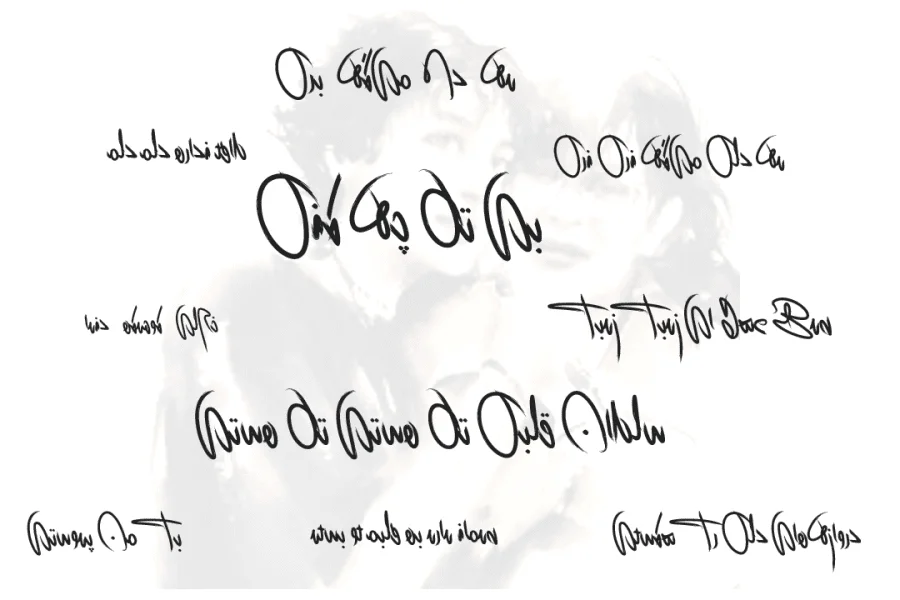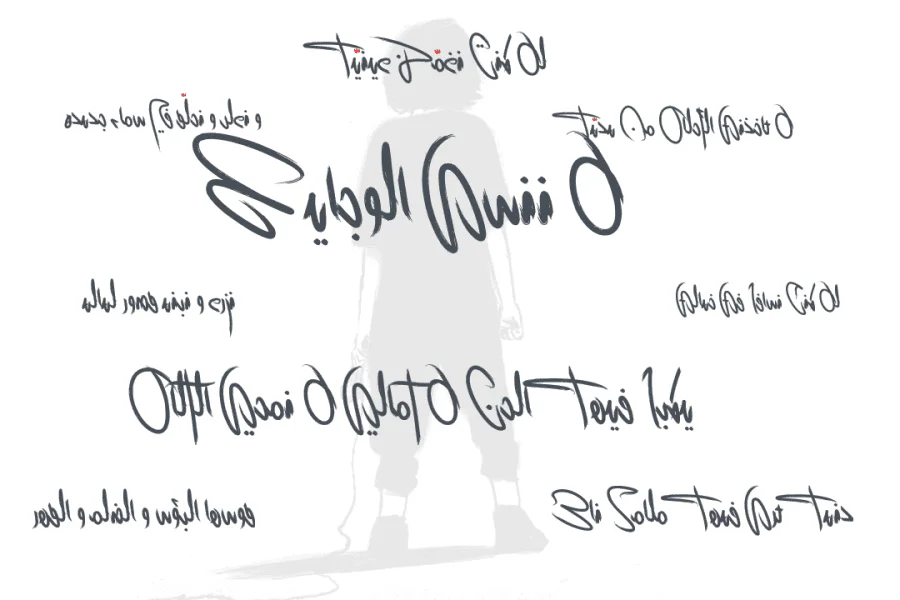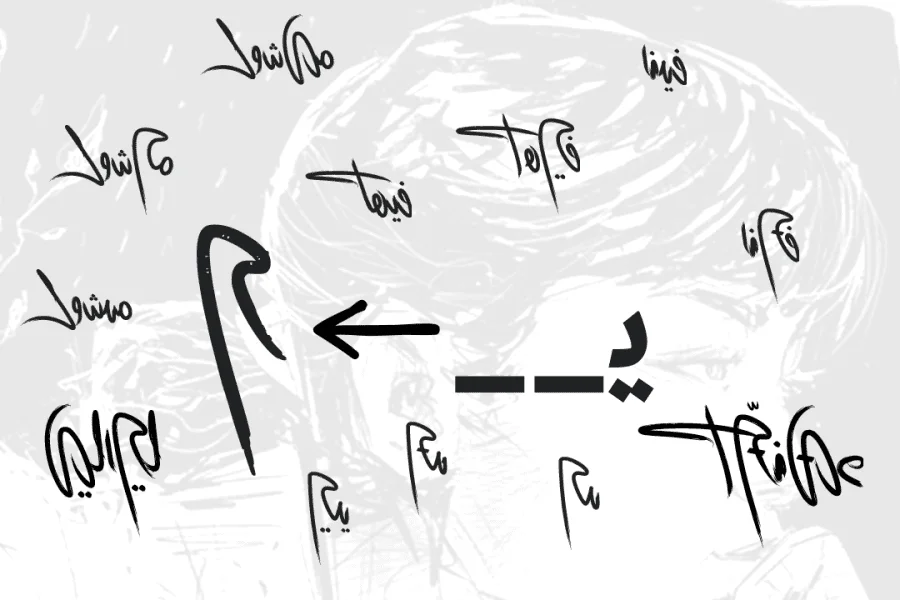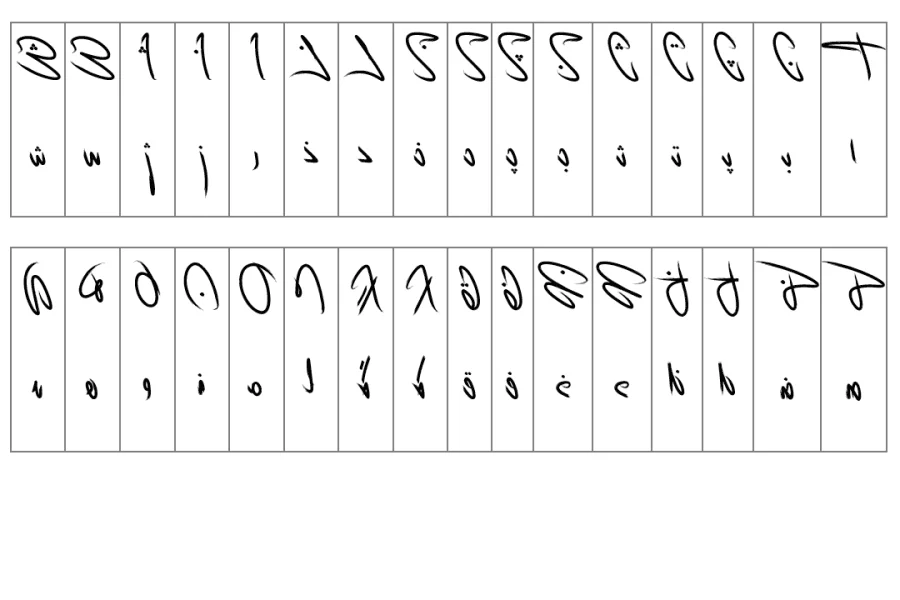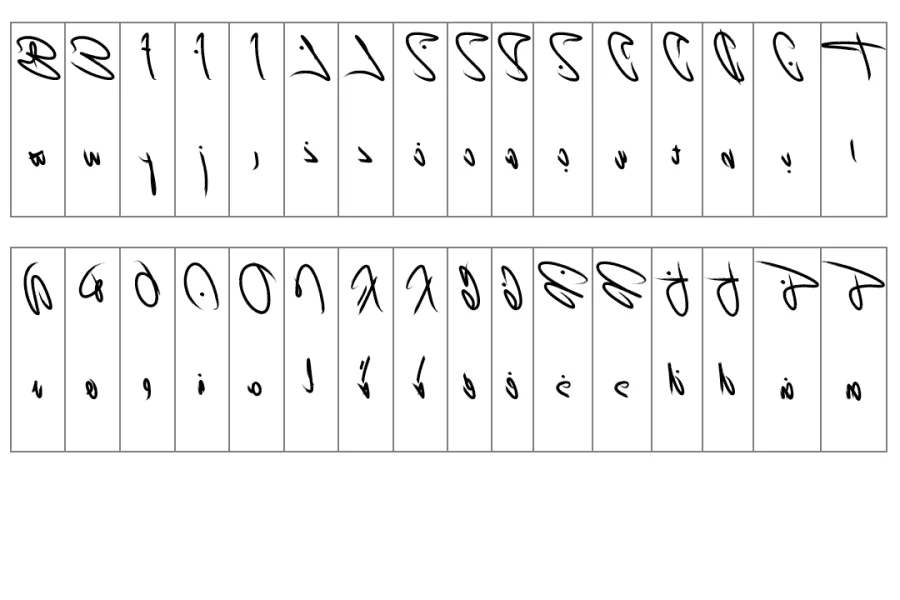
NikaSha (نیکاشا, in memory ofNika Shakarami) is a brush-style calligraphic handwriting font family inspired by the ARTIN writing system. It features three semi-connected styles, diverging from Arabic traditional, connected styles. I hope you enjoy using it and feel proud to incorporate it into your artwork.
The nikasha LP (Less Point) refers to a version of the typeface where glyphs that contain two or more dots are replaced with new shapes that do not include any dots. It is important to note that, aside from the nikasha Regular style, all other styles use this dot-reduced alphabet.
The nikasha MC (Mixed Case) font mimics Latin fonts, enabling typists to choose between lowercase (Initial) and uppercase (Isolated) letters using a software Caps Lock key. This software Caps Lock feature can be activated or deactivated by pressing the Tatweel letter. more…
Additional related styles are available in the nisha font family.